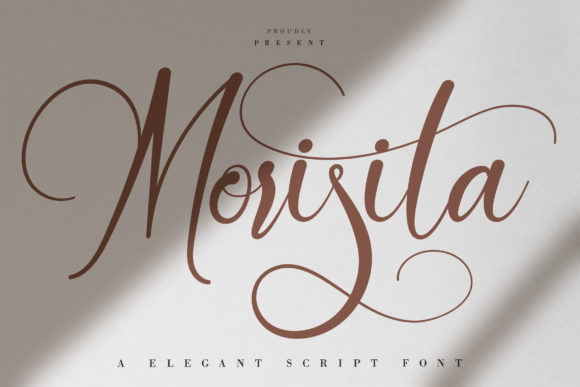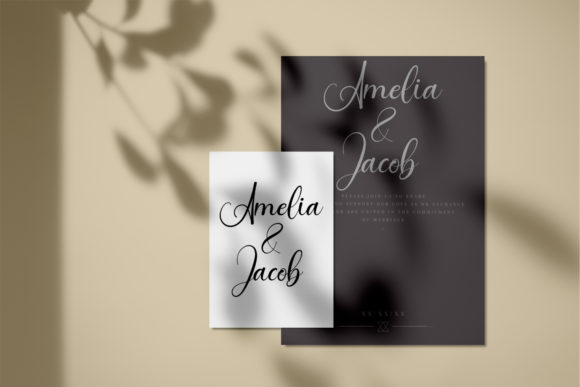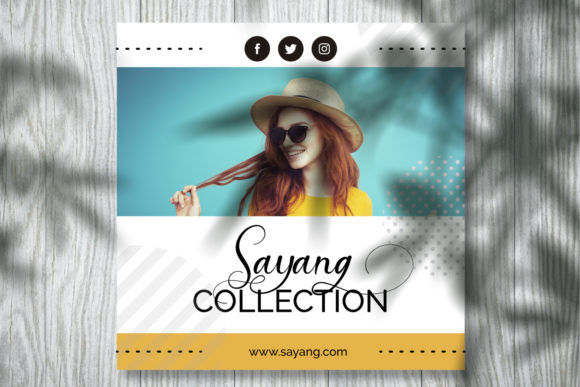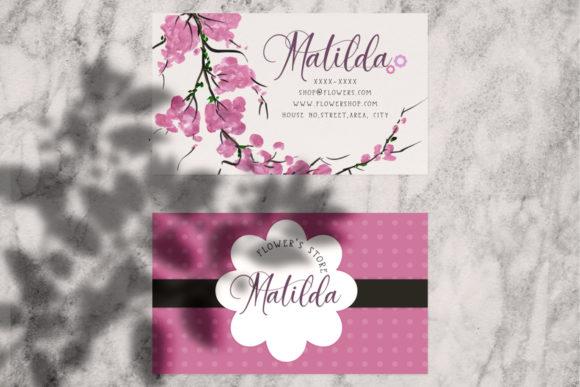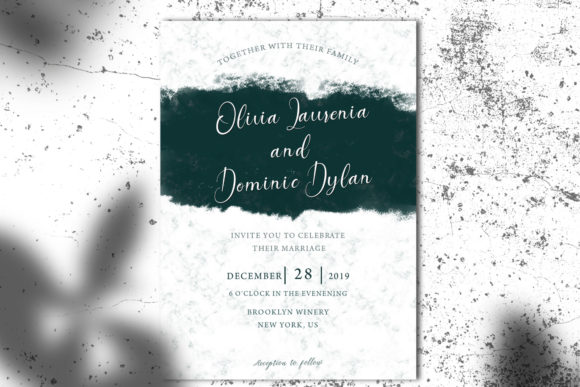
Morisita Font
About Morisita Font
Morisita is a lovely and modern script font with a unique style. It will add a romantic touch to any crafting project!